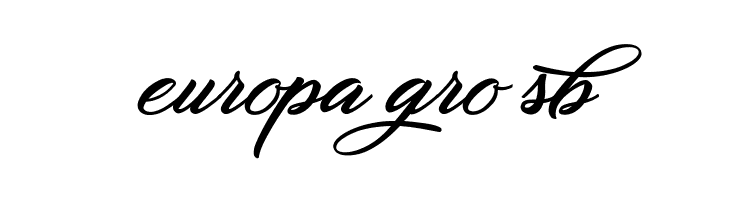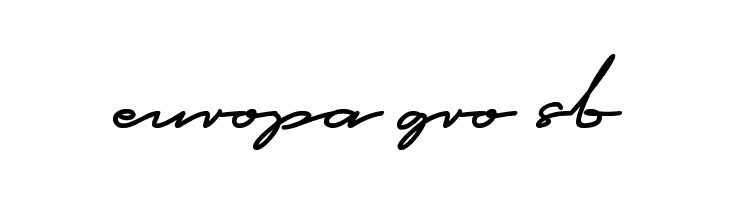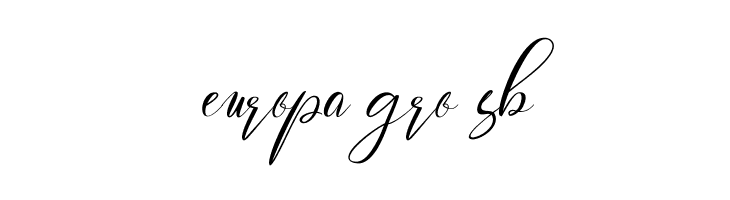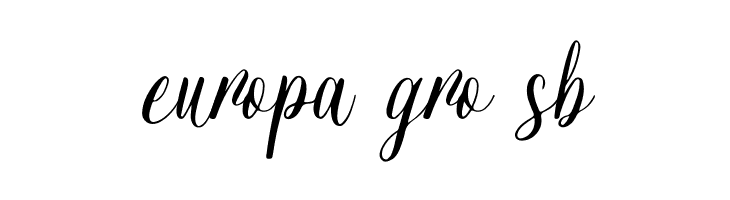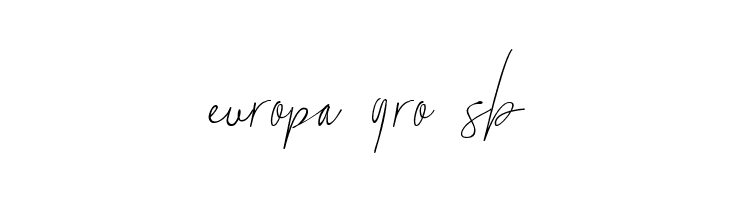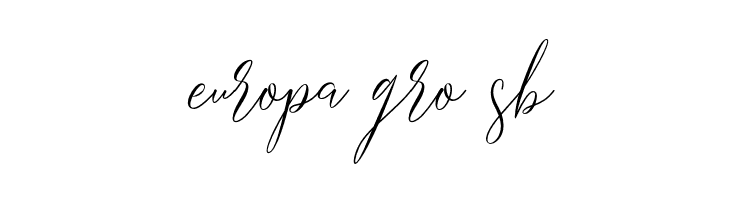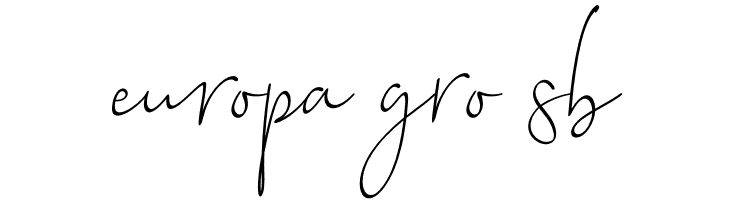
( Måns Grebäck - www.mansgreback.com )
A graceful and elegant script font with fluid, cursive strokes.
( Måns Grebäck - www.mansgreback.com )
A classic, elegant handwritten script with fluid, connected letterforms.
( Måns Grebäck - www.mansgreback.com )
An elegant, flowing script font with a natural handwriting style.
( Måns Grebäck - www.mansgreback.com )
An elegant, flowing script font with intricate loops and swirls.
( Nirmana Visual - Sigit Dwipa - www.instagram.com/nirmanavisual/ )
A delicate and flowing script font with elegant, elongated letterforms.
( Nusantara std - Rindam rio )
A lively and elegant script font with fluid, interconnected strokes.
( Octotype - www.foundmyfont.com/ )
A sophisticated script font with flowing, interconnected letters and elegant flourishes.
( Ojo Ngintype - www.creativefabrica.com/designer/jangan-ngintype/ )
A cursive, handwritten font with elegant, flowing lines and interconnected letters.
( OldStudioo - Muhammad Ilham - www.fontdraft.com )
A delicate and elegant script font with flowing, graceful strokes.
( OldStudioo - Muhammad Ilham - www.fontdraft.com )
A modern, elegant script font with flowing, cursive strokes and dramatic flourishes.
( OldStudioo - Muhammad Ilham - www.fontdraft.com )
A graceful, handwritten script font with elegant, flowing lines.
( Picatype Studio - creativemarket.com/picatype )
An elegant and sophisticated script font with flowing, cursive letters.
( Poemhaiku - Huong Le Thi Thu - www.behance.net/poemhaiku )
A dynamic, cursive script with a hand-drawn, calligraphic style.
( Pointlab Studio - creativemarket.com/pointlab )
A graceful, handwritten script font with elegant curves and a calligraphic style.
( PutraCetol Studio - Putra Novembria Candra Kusuma - creativemarket.com/putracetol )
A flowing, elegant cursive font with graceful loops and smooth connections.
( Rajendra Bitling - www.rbitling.com )
An elegant, italic cursive font with flowing lines and moderate contrast.
( Rengga Eka Zulkarnaen - www.behance.net/kamigawietd2f7 )
A sophisticated handwritten script with fluid, cursive strokes.
( Rifan Asri )
A delicate and elegant script font with flowing, graceful strokes.
( Rifan Asri )
An elegant, flowing script font with ornate uppercase and cohesive lowercase letters.
( Roch Art )
A graceful script font with flowing, interconnected letters and bold numerals.
( Roch Art )
An elegant script font with flowing, interconnected letters and ornate flourishes.
( Roch Art )
An elegant, cursive font with intricate loops and sweeping curves.
( Roland Huse Design - Roland Huse - rolandhuse.com )
A flowing, cursive script font with elegant, interconnected letters.
( Runsell Studio - creativemarket.com/RunsellStudio )
A modern cursive font with elegant, flowing lines and a slight slant.
( Runsell Studio - creativemarket.com/RunsellStudio )
A stylish and elegant script font with flowing, cursive strokes.
( Runsell Studio - creativemarket.com/RunsellStudio )
A modern, elegant handwritten font with medium contrast and dynamic slant.
( Sean Dalton - seandalton.com.au )
An elegant script font with intricate swirls and flourishes, perfect for sophisticated designs.
( Sigit Nur Wicaksono - creativemarket.com/ogit )
A sophisticated script font with flowing, ornate cursive letters.
( Sigit Nur Wicaksono - creativemarket.com/ogit )
A flowing, cursive font with elegant, interconnected strokes and a sophisticated appearance.
( Sigit Nur Wicaksono - creativemarket.com/ogit )
An elegant, flowing script font with thin strokes and graceful curves.
( Solidtype - bit.ly/2OxZn2V )
An elegant script font with fluid, cursive strokes and decorative loops.
( Solidtype - bit.ly/2OxZn2V )
A sophisticated script font with flowing, interconnected characters and elegant flourishes.
( Sronstudio - Yusron Billah )
An elegant, cursive font with fluid, connected strokes and a refined appearance.
( Sronstudio - Yusron Billah )
A fluid and elegant script font with graceful, flowing letterforms.
( Sronstudio - Yusron Billah )
An elegant and flowing script font with graceful curves and loops.